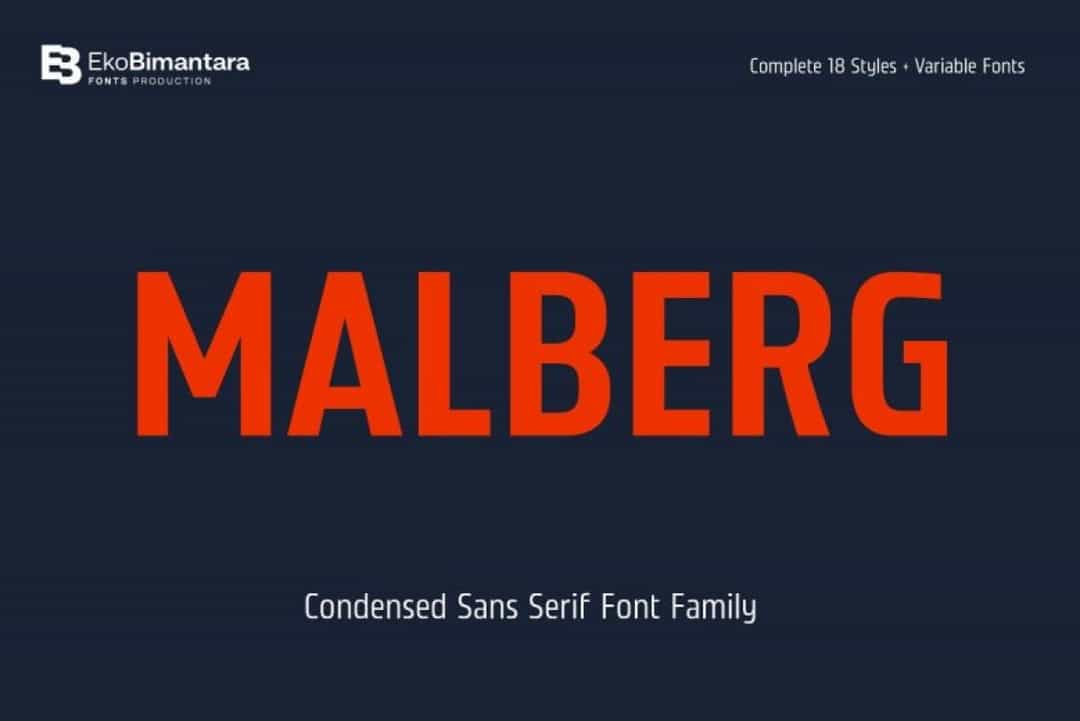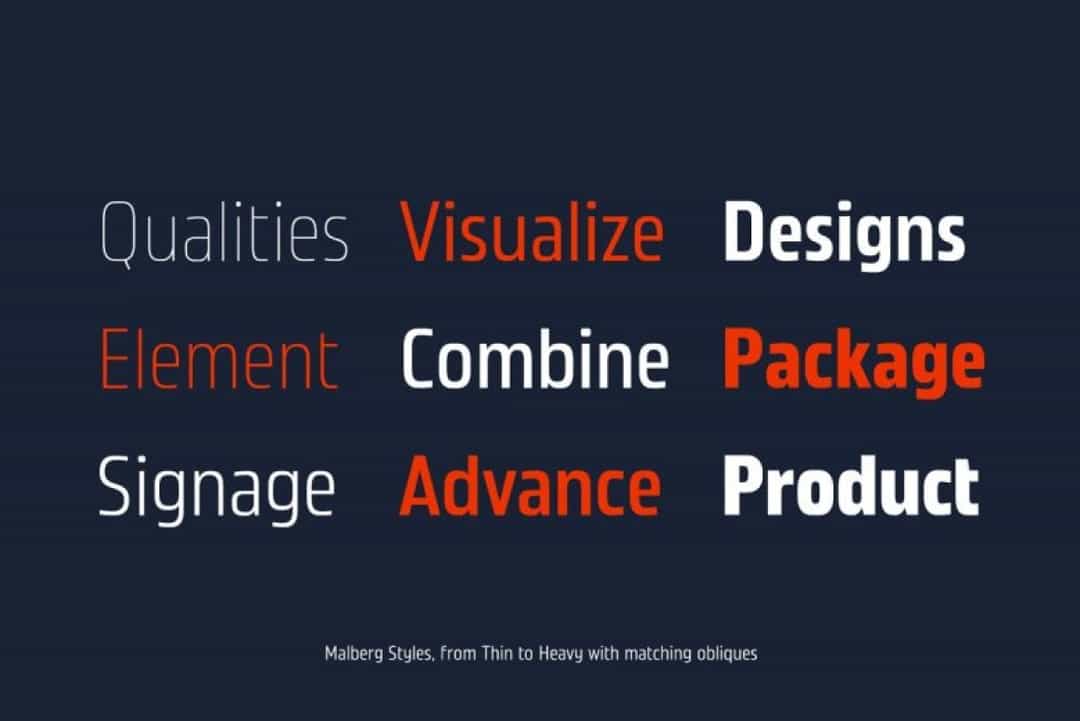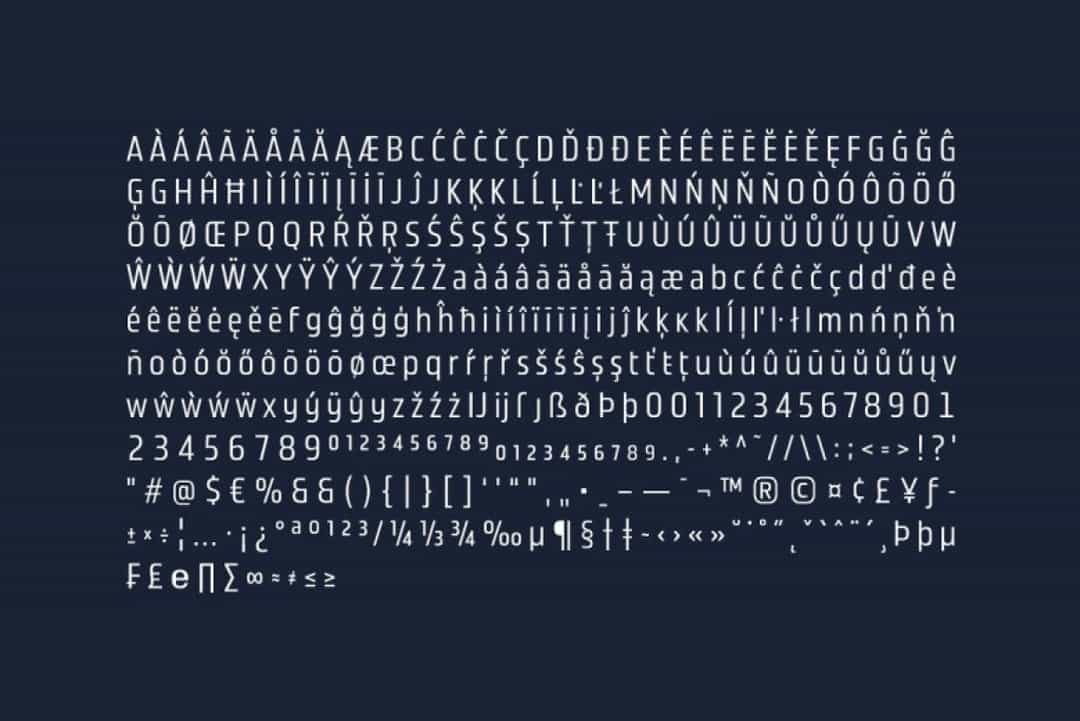
Malberg by Eko Bimantara is an eye-catching sans-serif font with strong and striking characteristics, comprising nine styles from light to thin with matching Obliques and simple, modern contemporary typography that is suitable for multiple areas of design – ideal for display purposes or shorter text for various design purposes.